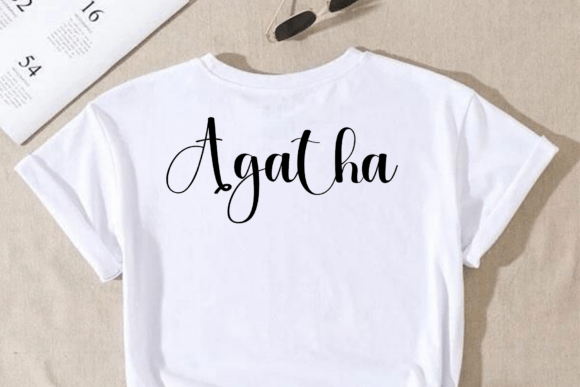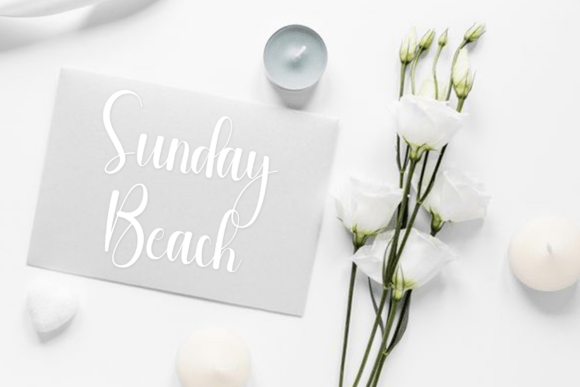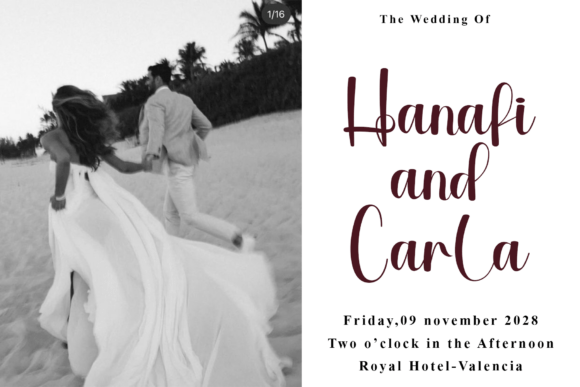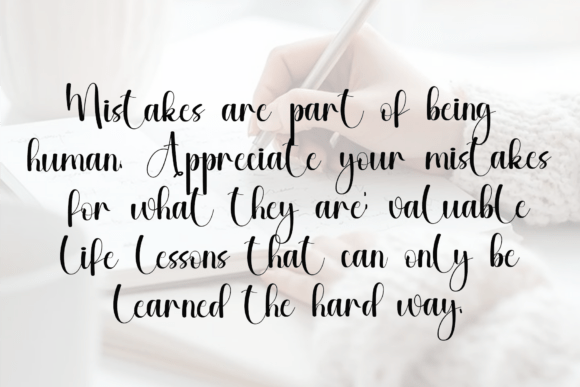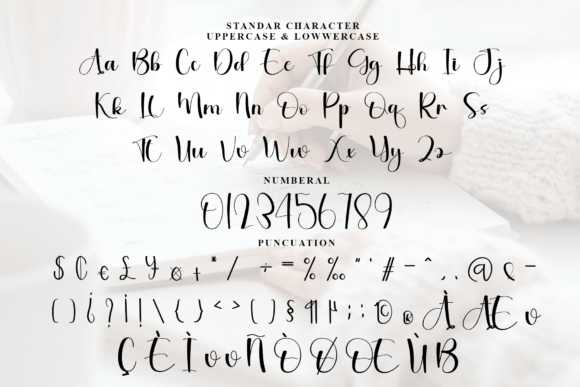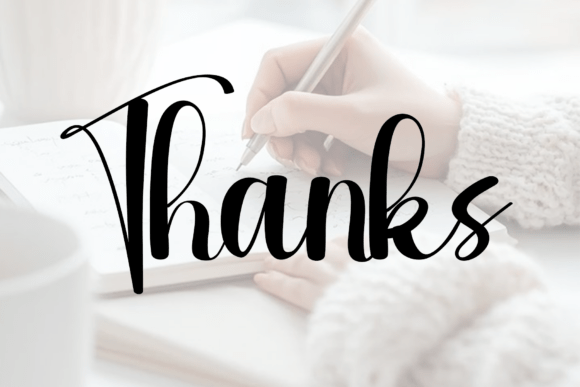
Introduction to Monogram Handwriting Font
Have you ever been stuck on a creative project, struggling to find the perfect font to bring your vision to life? You’re not alone. Designers know that the right typography can make all the difference in a project’s success. And that’s exactly what the Monogram Handwriting Font offers – a unique blend of organic charm and typographic presence that can elevate any design.
As a valuable resource for designers, the Monogram Handwriting Font is a must-have in your design arsenal. Its well-balanced proportions and high-quality design make it a perfect fit for a wide range of creative projects, from outdoor lifestyle branding to organic product packaging. And the best part? It’s available for free download, making it an accessible design resource for designers of all levels.
Whether you’re working on a project that requires a smart and adventurous handmade look or simply want to add some personality to your designs, the Monogram Handwriting Font is an excellent choice. With its transparent background and versatile style, you can use it to create stunning graphics, invitations, and more.
Key Features of Monogram Handwriting Font
- Unique Handwritten Style: The Monogram Handwriting Font offers a distinctive, high-quality handwritten style perfect for creative projects that require a personal touch.
- Extensive Character Set: The Monogram Handwriting Font includes a comprehensive character set, including uppercase and lowercase letters, numbers, and punctuation marks, making it a versatile design resource.
- Perfect for Creative Projects: The Monogram Handwriting Font is ideal for creative projects such as invitations, greeting cards, and social media graphics, where a personal and unique touch is essential.
Honest Review: Monogram Handwriting Font
I recently stumbled upon the Monogram Handwriting Font and was excited to give it a try. As a designer, I’m always on the lookout for high-quality fonts to enhance my creative projects.
The Monogram Handwriting Font is a beautiful, elegant script font that’s perfect for adding a touch of sophistication to your designs. ✨ It’s highly versatile and can be used for a variety of projects, from wedding invitations to business cards.
One thing to note is that the font can be a bit tricky to use, especially for those who are new to working with script fonts. ⚠️ The font requires some manual adjustments to achieve the desired look, which can be time-consuming.
Overall, I’m really impressed with the Monogram Handwriting Font. It’s a great addition to any designer’s toolkit and can help take your creative projects to the next level.
Monogram Handwriting Font
Tips for Getting the Most Out of Monogram Handwriting Font
For the best results, use the font with a transparent background to create a seamless look. Experiment with different font sizes and styles to add depth and visual interest to your designs.
Monogram Handwriting Font is perfect for:
- Quote graphics and social media posts